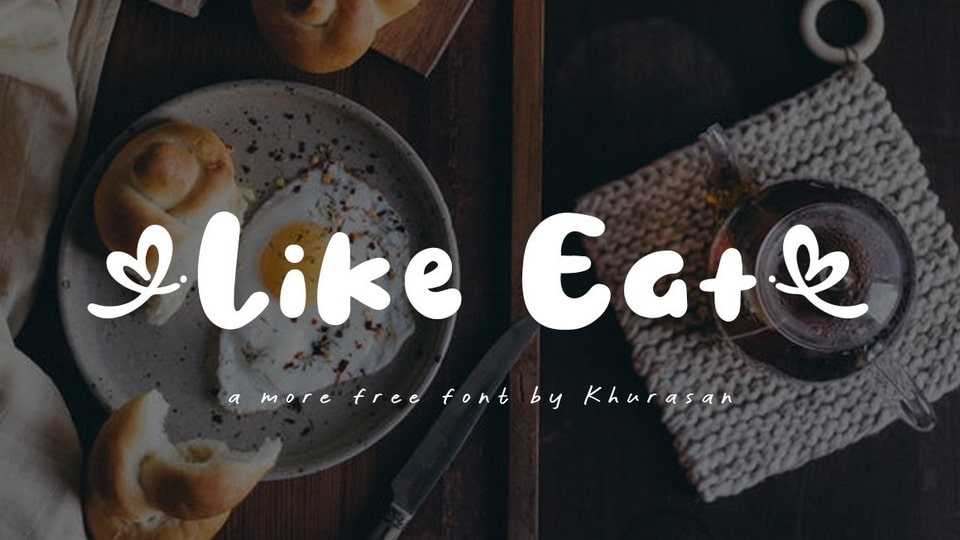
Download Like Eat font, a friendly and cute hand drawn typeface. Like Eat font is perfect for writing out quotes for Instagram posts, wall art or greeting cards, crafts, packaging or branding.